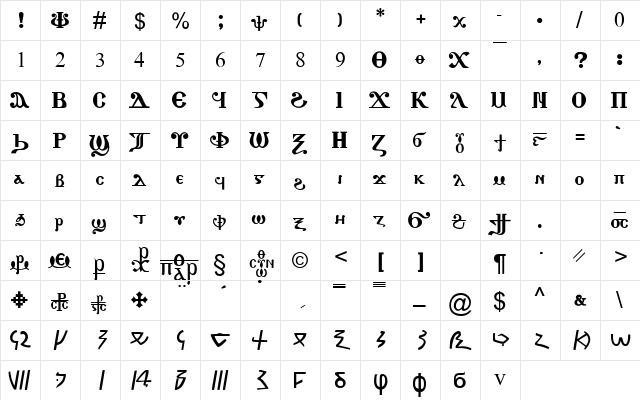
CS New Athanasius Regular
Design Context for CS New Athanasius Typeface
CS New Athanasius offers clean, dependable letterforms without strong stylistic allegiance, making it a practical choice for designers who need flexibility.